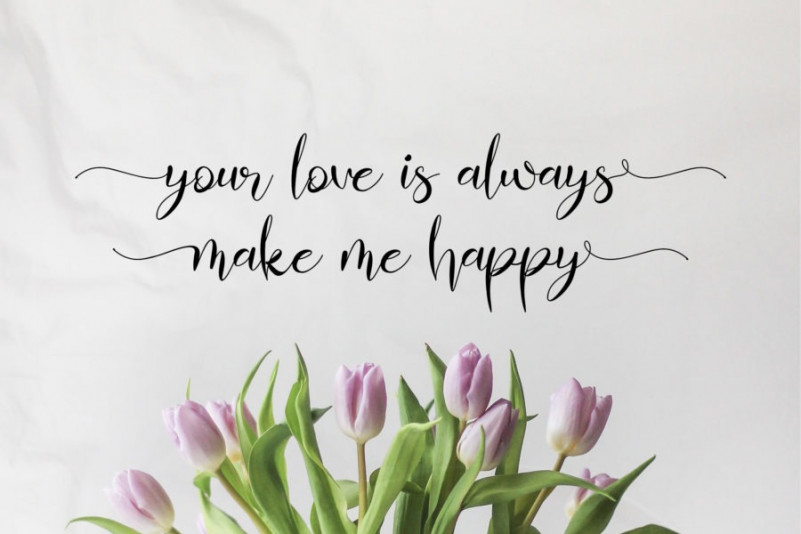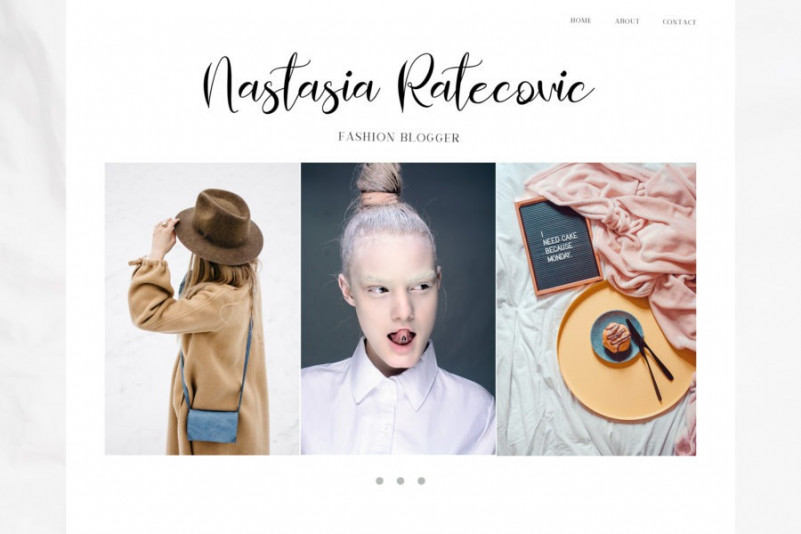
Rosaline Handwritten Font
Rosaline Handwritten Font is brand new handwritten font series that represents modern elegant with simplicity.
Rosaline is perfect font for any kind of your project, such as advertisements, branding, graphic design, quotes, wedding design, logo for online or offline business, photography, and others.